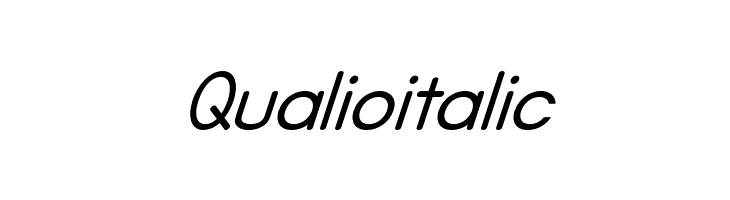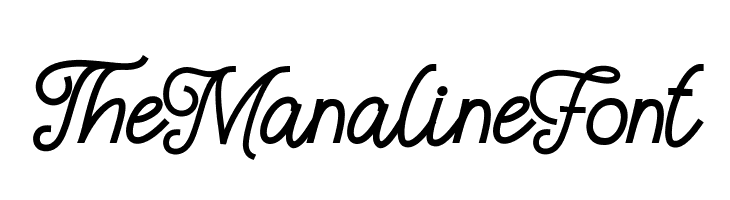
A playful, handwritten font with rounded edges and a casual style.
A graceful script font with elegant, flowing cursive strokes.
A playful and elegant script font with a handwritten touch.
A bold, angular, and geometric font with a modern edge.
A bold, brush-style font with a hand-painted, artistic appearance.
A modern, backslant font with wide, evenly spaced characters.
A modern, hollow inverse font with smooth, rounded lines and a futuristic style.
A futuristic, geometric font with angular shapes and consistent line thickness.
An elegant, high-contrast serif font with elongated characters.
A charming and elegant script font with flowing, cursive letterforms.